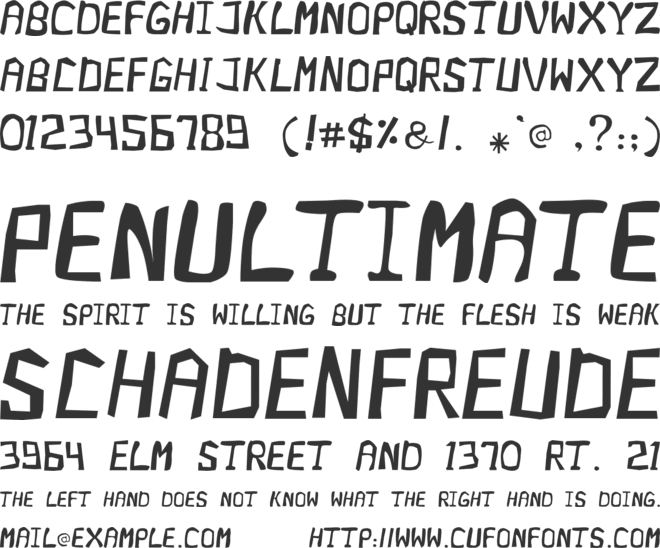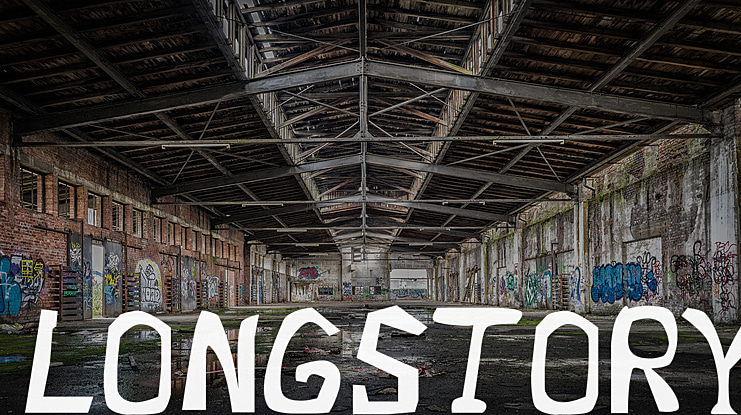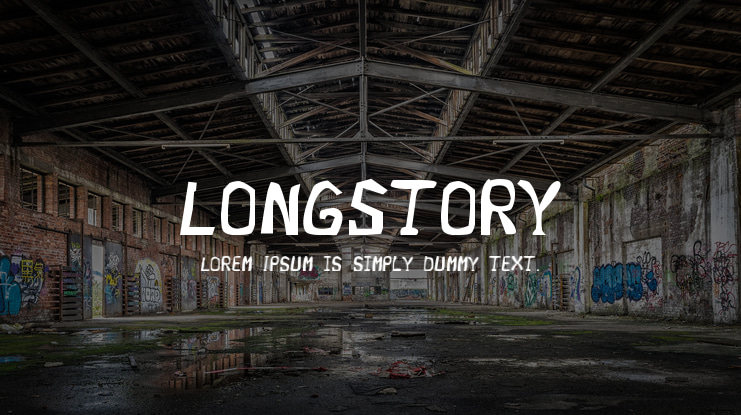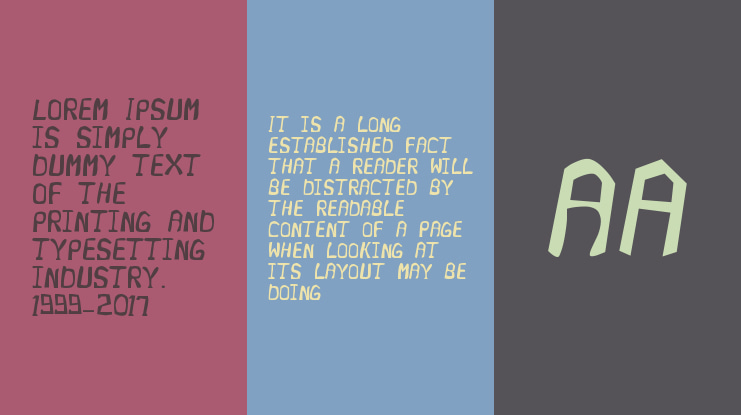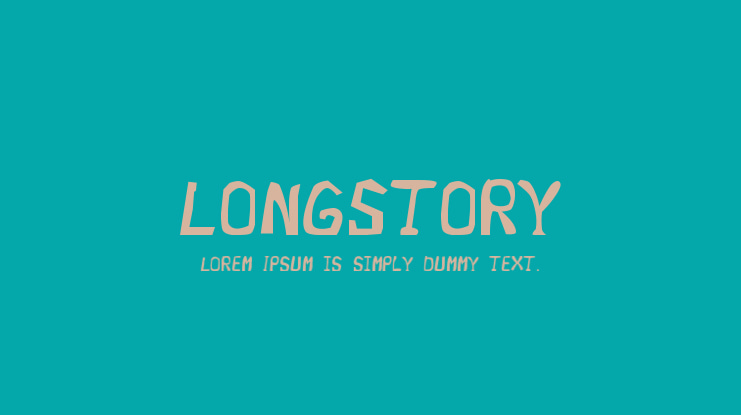
LongStory Font
What inspired to make this font was indeed a passion for letters. I did finish this typeset in sixteen hours. I did include FontForge file also. If you like, you can do extra tweak work. I do like Alex Toth and Jean Giraud's Lettering work for graphic novels. So my next work will be a blend. Also I love all sorts of lettering typefaces ... See you soon. Oh forget to mention, This LongStory Typeface is all capitals, your lower case will also print capitals with a slight variations.